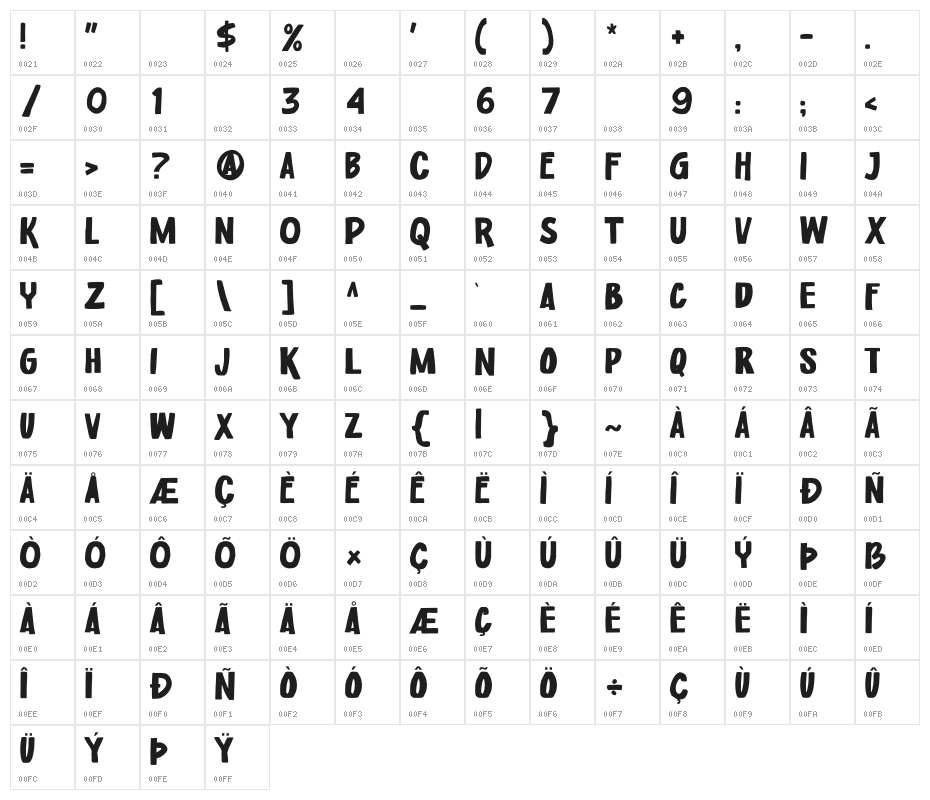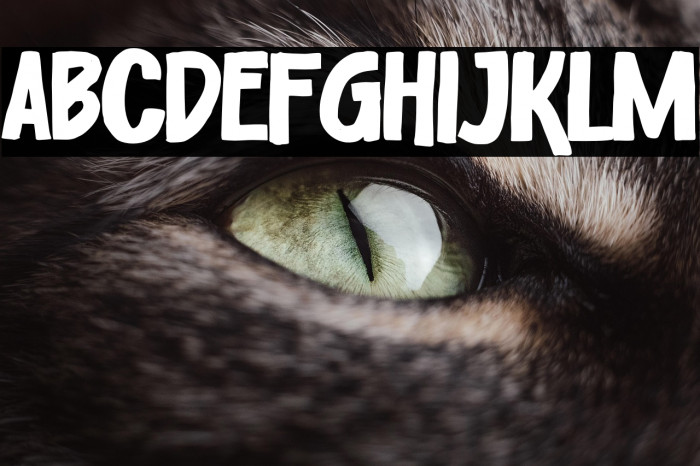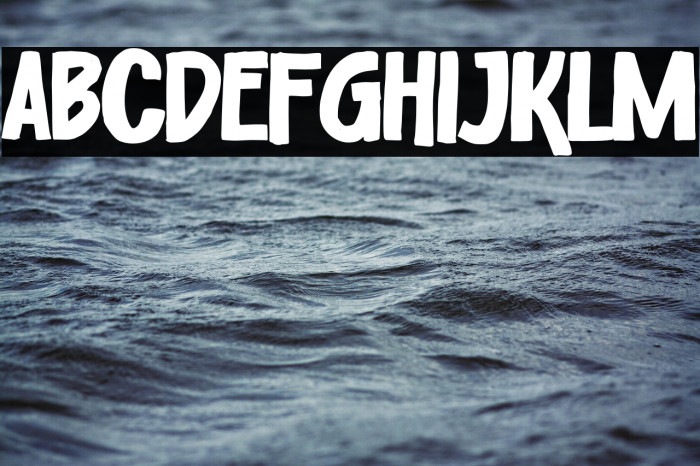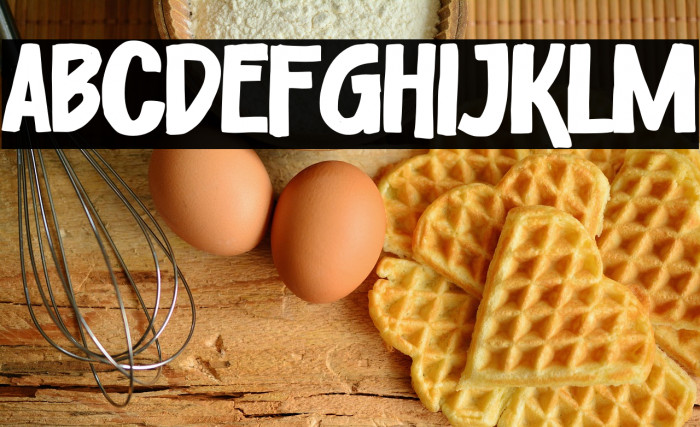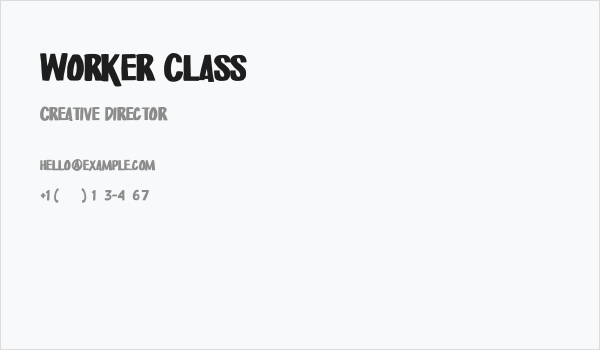
Worker Class Font
Worker Class Description
This font features bold, thick strokes with a playful and informal style. The characters are slightly irregular, giving them a hand-drawn appearance that adds a sense of whimsy and creativity. The uppercase letters are prominent and assertive, while the lowercase letters maintain a consistent style that complements the overall design. The numbers and special characters follow the same bold and playful aesthetic, making this font suitable for projects that require a fun and engaging look. The font's unique style is perfect for capturing attention and conveying a sense of energy and enthusiasm.
| Overall Style | Playful, Creative |
| Use Case | Headlines, Posters, Branding |
| Proposed Projects | Ideal for children's books, posters, playful branding, and creative advertising. |